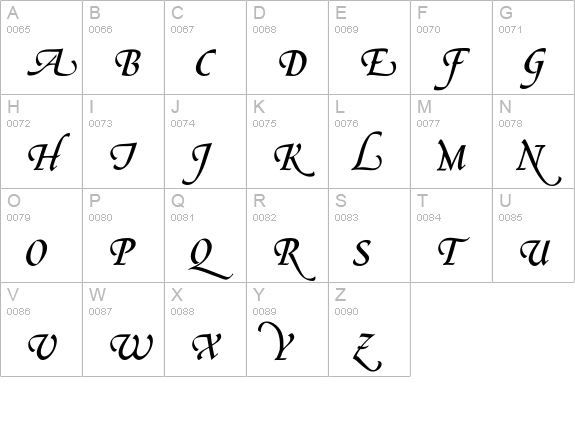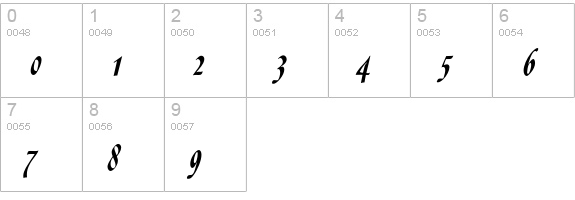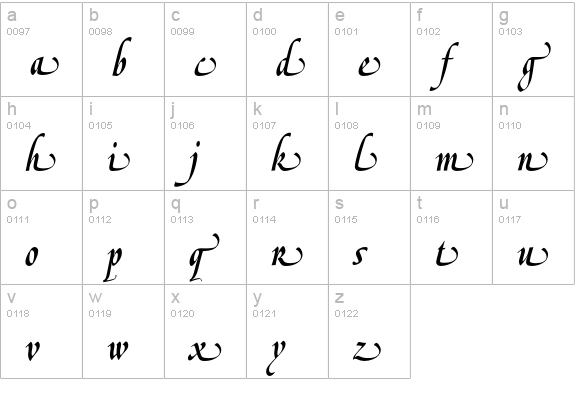
LeGriffeEF-AlternateTwo Font Details
Introducing LeGriffeEF-AlternateTwo font - a captivating typeface that effortlessly combines elegance and modernity. This font is perfect for adding a touch of sophistication to any design project, whether it be a logo, advertisement, or invitation. LeGriffeEF-AlternateTwo boasts a unique and intricate design, featuring sleek lines and stylish curves that exude confidence and creativity. Its alternate glyphs add versatility, allowing you to experiment with different styles and create truly eye-catching compositions. One of the most remarkable aspects of LeGriffeEF-AlternateTwo is that it is freely available to download at FontsMarket.com. This means that you can easily access this exquisite font without any cost, making it an ideal choice for both personal and commercial purposes. With LeGriffeEF-AlternateTwo, you can elevate your designs to new heights. Its clean and well-defined characters ensure readability, while its subtle details add a touch of sophistication. This font truly embodies the perfect balance between classic and contemporary aesthetics. Whether you're designing a wedding invitation, a fashion brand logo, or a magazine layout, LeGriffeEF-AlternateTwo will undoubtedly leave a lasting impression. Its versatility and timeless appeal make it a must-have in any designer's toolkit. Embrace the freedom of creativity with LeGriffeEF-AlternateTwo font, available for free download at FontsMarket.com. Elevate your designs and captivate your audience with this exquisite typeface that effortlessly combines elegance and modernity.